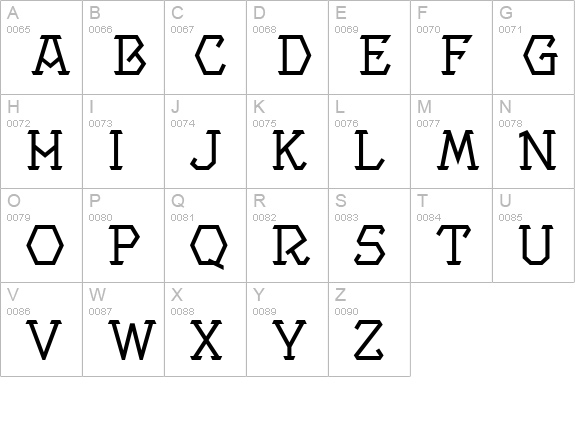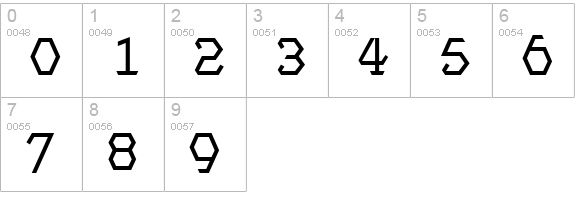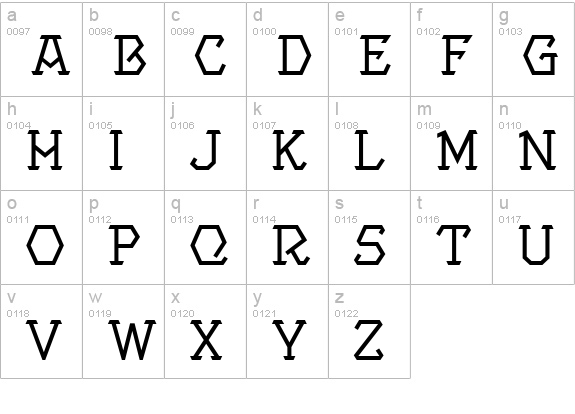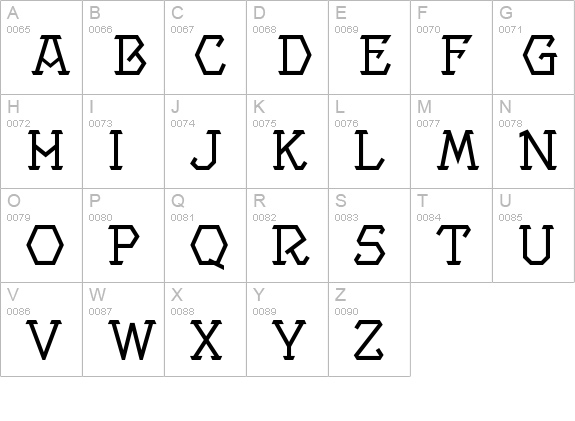
ProjectLight Font Details
ProjectLight is a modern and sleek font that exudes sophistication and elegance. With its clean lines and contemporary style, this font is perfect for a wide range of design projects, from branding to editorial layouts. The light weight of the font adds a delicate touch, making it ideal for creating a sense of refinement and subtlety in your designs. What sets ProjectLight apart is not only its aesthetic appeal, but also the fact that it is available for free download at FontsMarket.com. This means that you can easily access this versatile font to elevate your creative projects without any cost. Whether you are a designer looking for a fresh typeface to enhance your work or a business owner seeking a modern font for your branding, ProjectLight is a fantastic choice that won't break the bank. Download it today and experience the beauty and versatility of this stunning font.